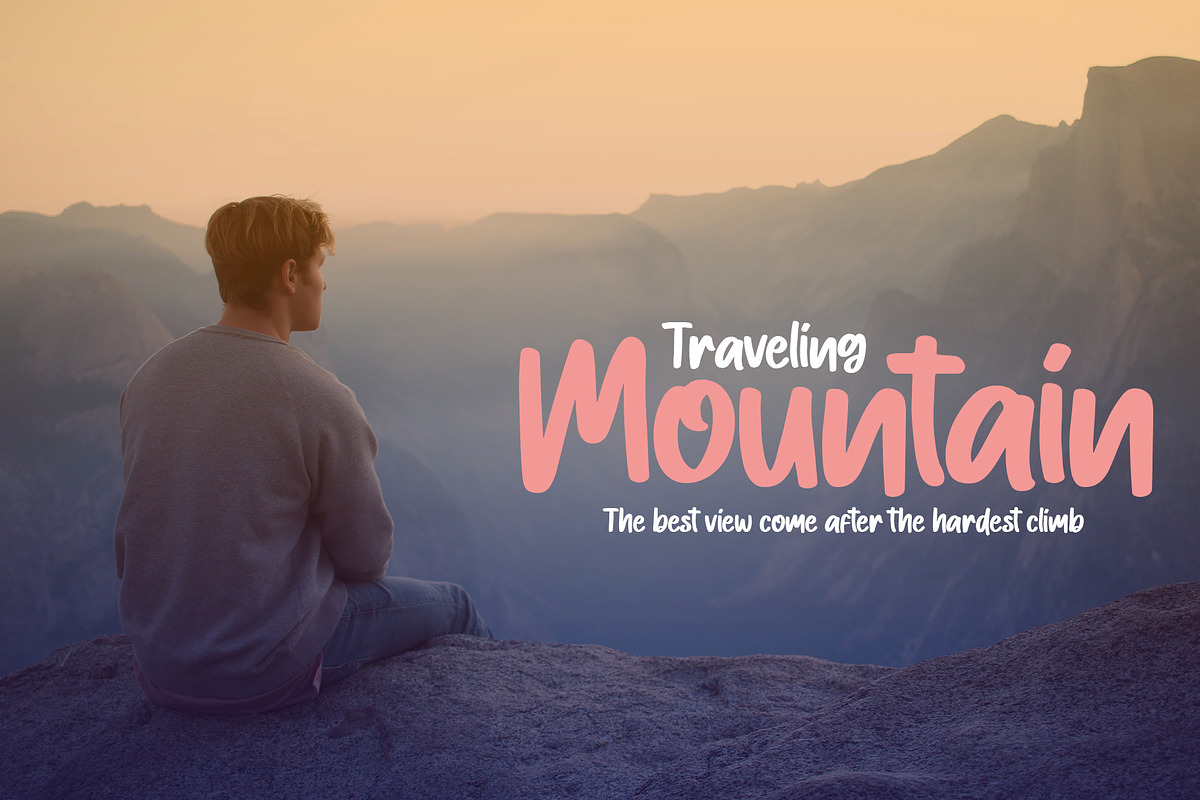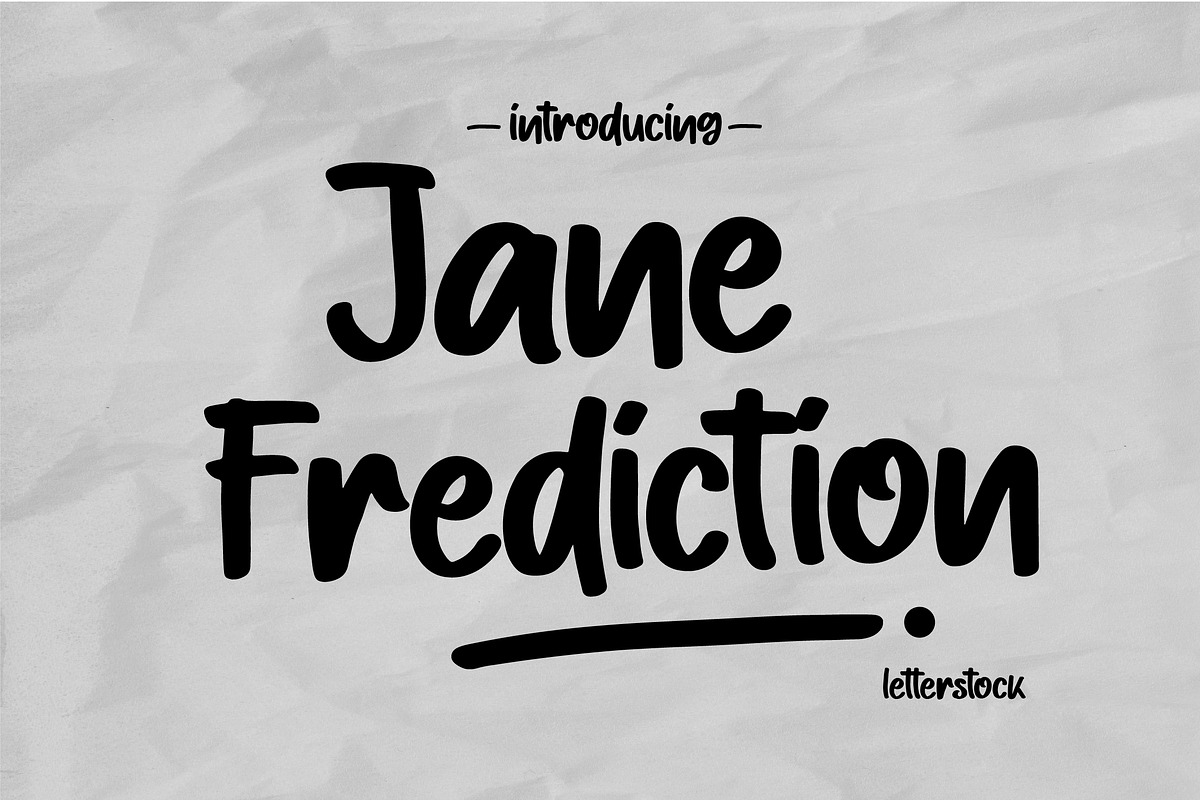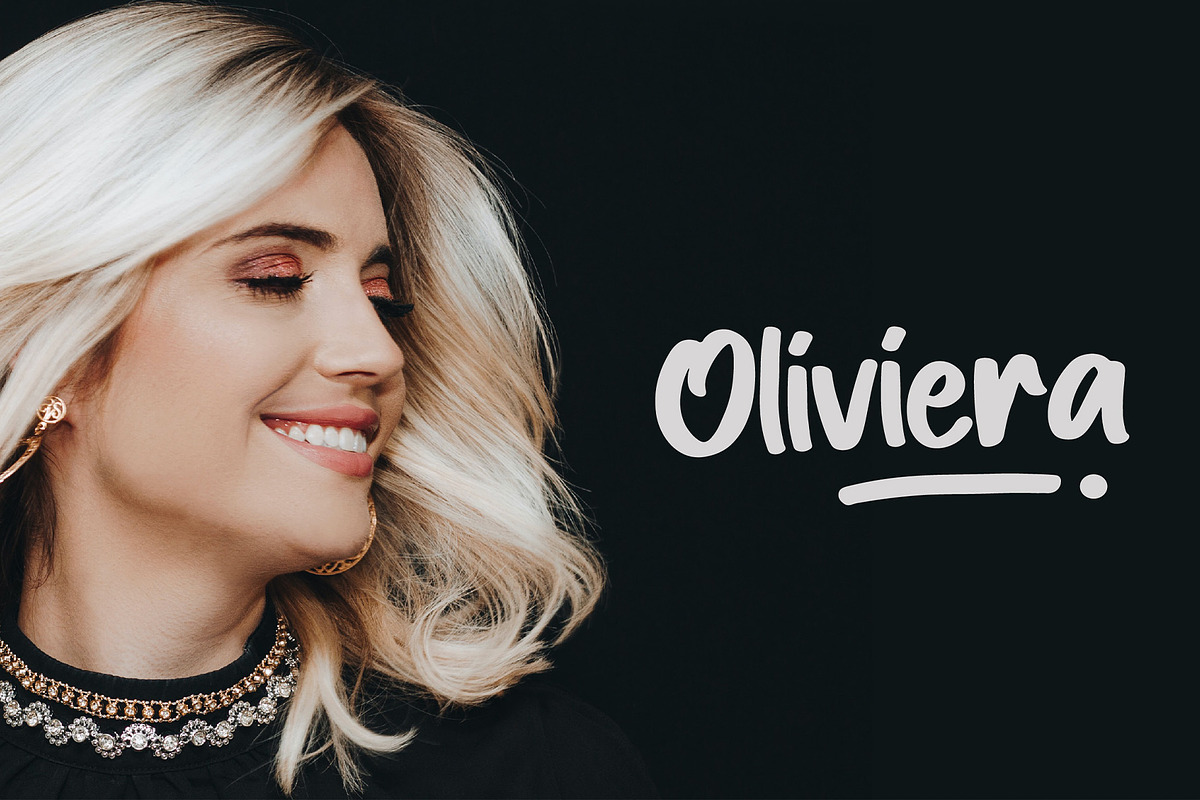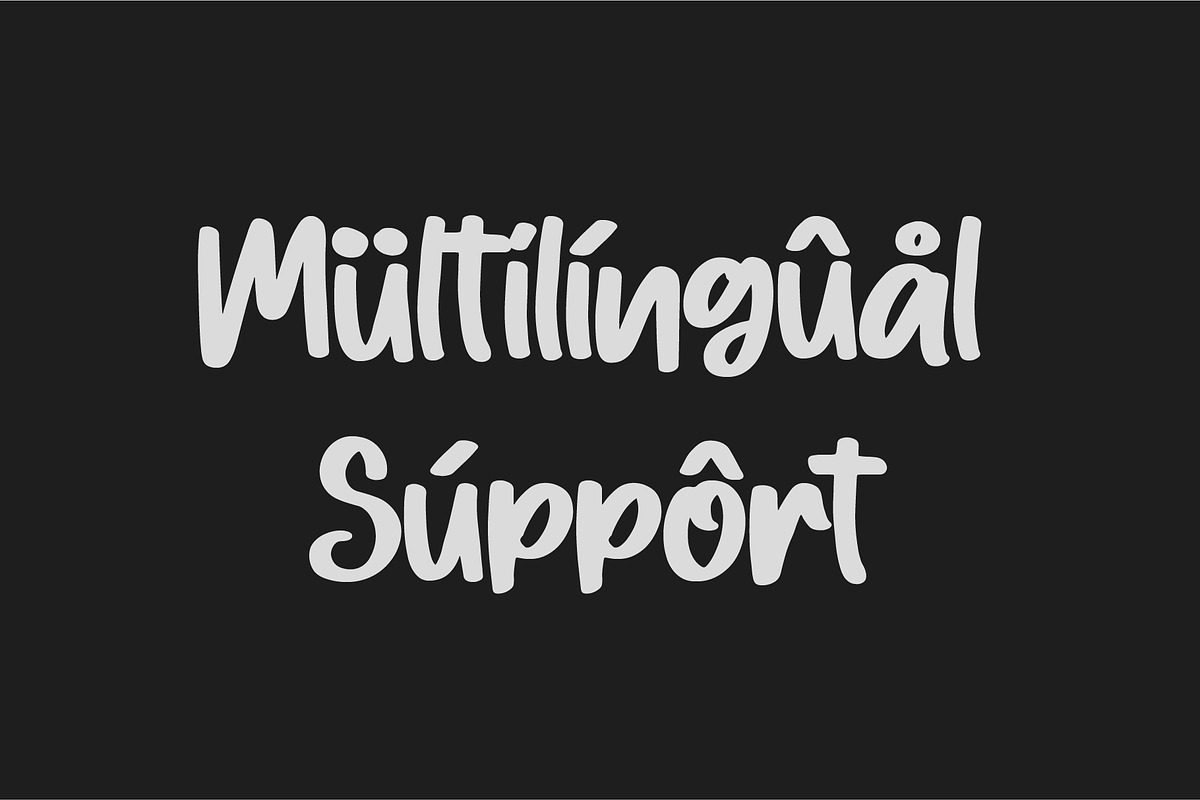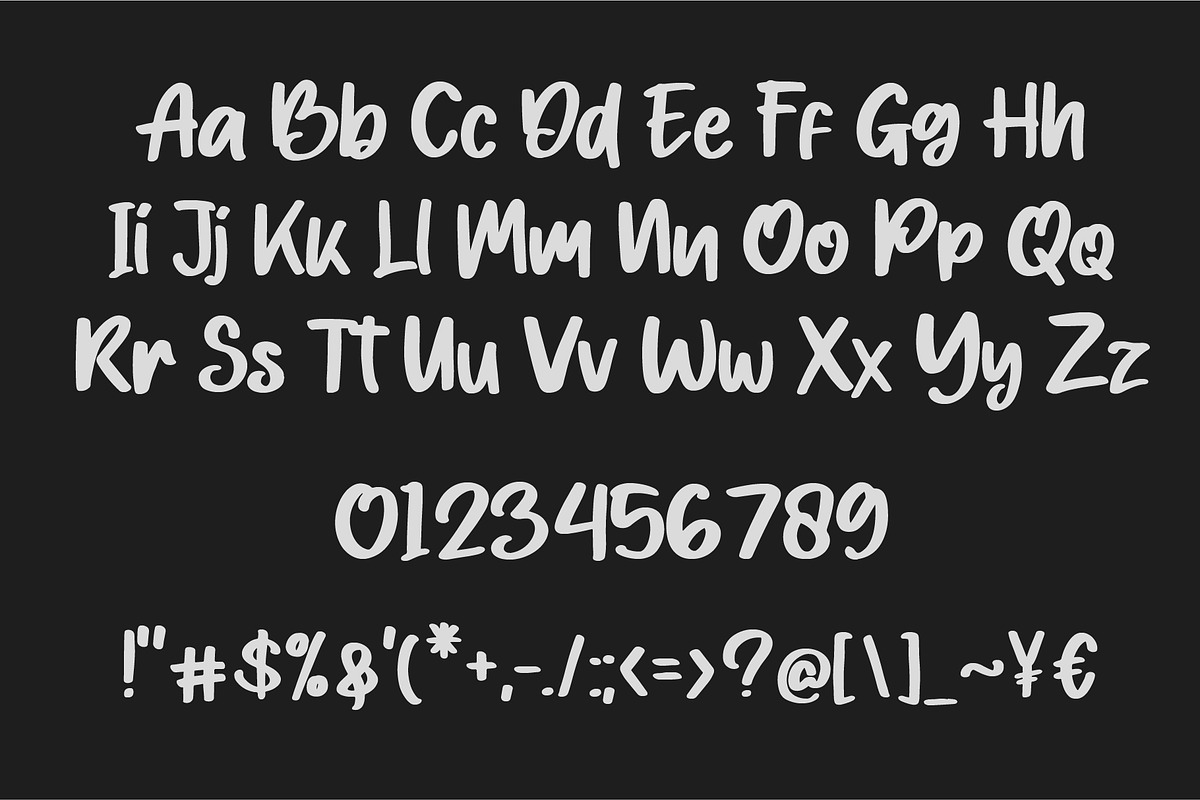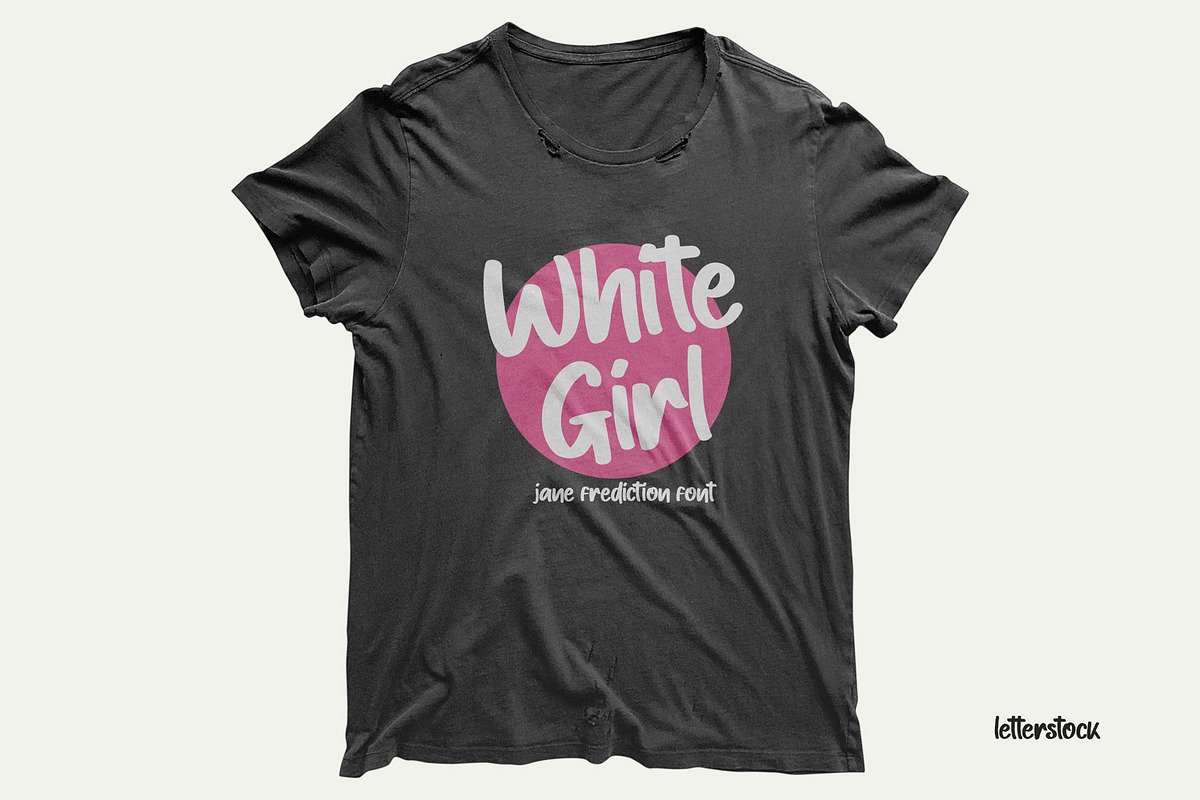
Jane Frediction
Jane frediction Font
This pair was inspired by the Great poster design that i saw on some coffee shop, It was crafted by hand specially to add natural handmade feeling in its brand identity than i make it clean with pentool.
Opentype features Jane frediction font has 168 character set included Jane frediction Font is very good looking in logo, labels, t-shirt prints, product packaging, invitations, advertising and others.